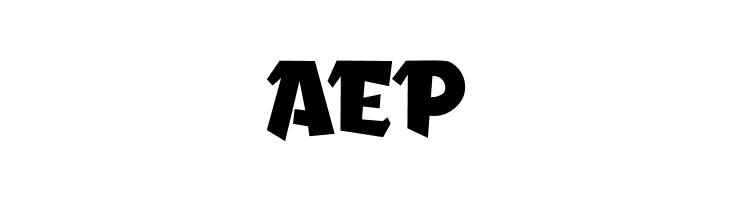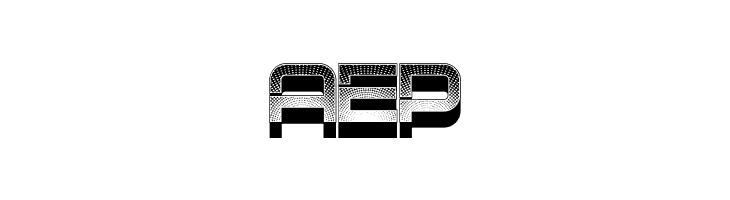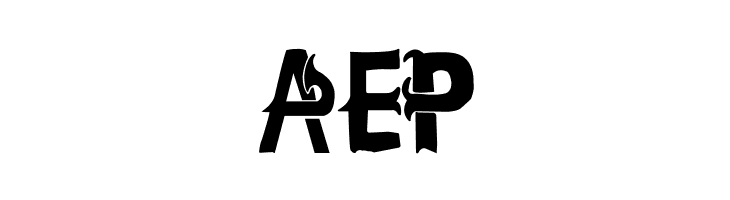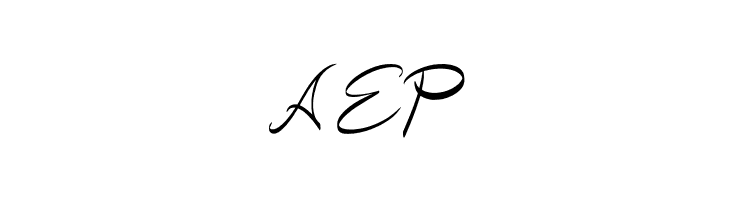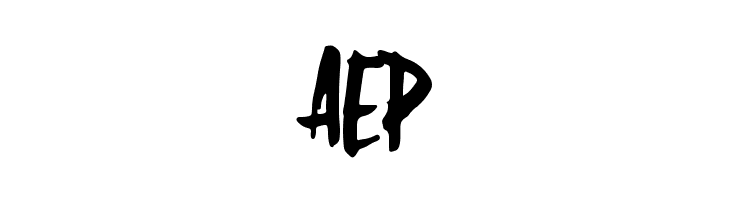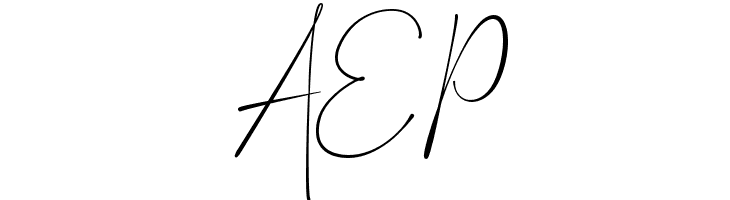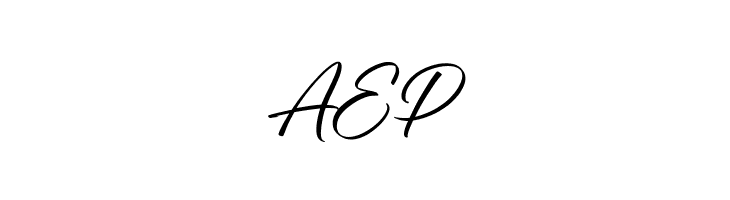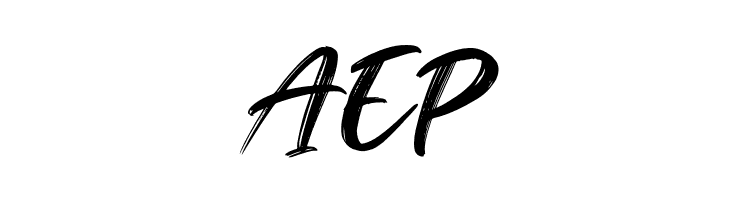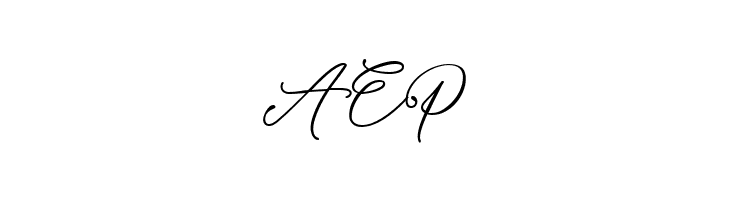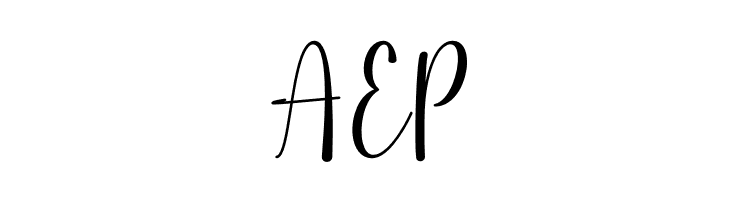
A bold, playful script font with a handwritten style.
A lively handwritten script with tall, narrow, and fluid letterforms.
A bold, playful font with rounded edges and a hand-drawn feel.
A bold, jagged font with a chaotic, monstrous style.
A bold, geometric font with sharp, angular edges and a modern industrial feel.
A bold, three-dimensional font with geometric lines and shadow effects.
A graceful script font with fluid, cursive strokes and elegant curves.
A bold, decorative font with a 3D effect and intricate detailing.
Elegant cursive script with a handwritten feel.
A flowing, cursive script font with elegant, handwritten characteristics.
An elegant, cursive font with a hand-drawn, sophisticated style.
A dynamic, cursive script font with a handwritten signature style.
A bold and dynamic script font with fluid strokes.
A bold, flowing script font with elegant curves and a handwritten style.
A bold, hollow, three-dimensional font with a geometric structure.
A bold, geometric font with a three-dimensional Art Deco style.
A dynamic and expressive handwritten font with fluid, interconnected strokes.
A clean, modern font with strong readability and balanced proportions.
A fluid and elegant handwritten script font with a dynamic and artistic style.
A bold, geometric font with strong, angular shapes ideal for impactful headlines.
An elegant, cursive script font with fluid, connected strokes.
A bold, hand-drawn font with an expressive and dynamic style.
A bold, hand-painted style font with dynamic, irregular strokes.
A playful and elegant handwritten script font with a modern touch.
A playful, modern handwritten font with dynamic slant and varied stroke thickness.
A bold, angular font with a playful and dynamic style.
An elegant, flowing script font with decorative flourishes and a handwritten style.
A playful, handwritten font with rounded edges and a casual style.
A bold, tall, and narrow font with a modern and impactful style.
A flowing, handwritten font with dynamic strokes and a playful, artistic style.
A bold, playful font with whimsical, decorative elements.
A playful, casual handwritten font with smooth, flowing curves.
A cursive, handwritten-style font with elegant loops and swashes.
A bold, expressive brush script font with dynamic strokes and a hand-painted look.